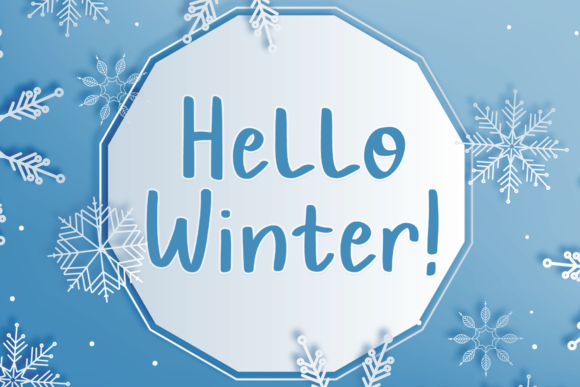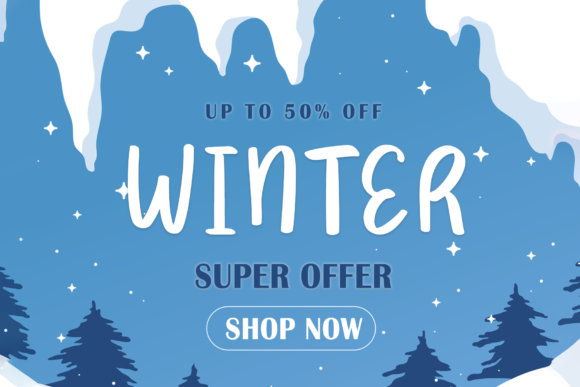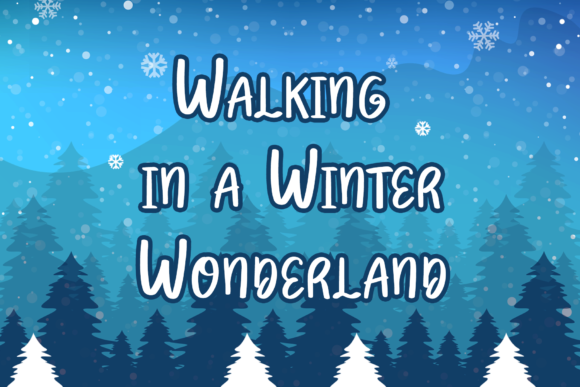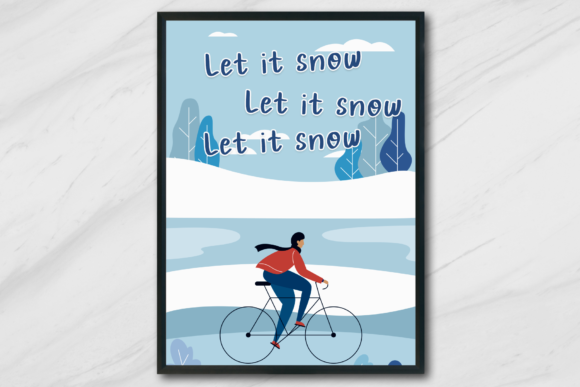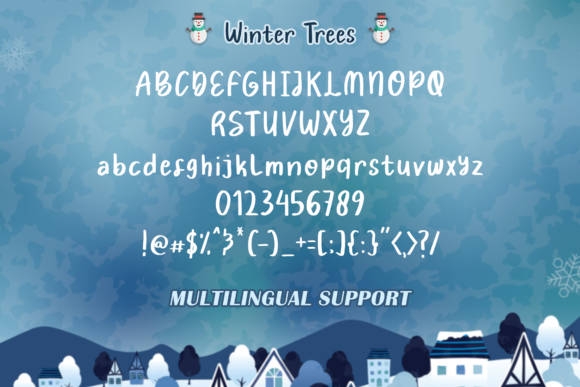
Winter Trees Font
About Winter Trees Font
Winter Trees is a clean and adaptable handwritten font. It can easily be matched to an incredibly large set of projects, so add it to your creative ideas and notice how it makes them stand out!